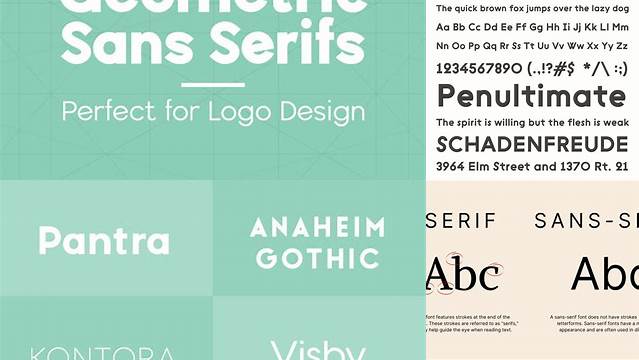
Free Geometric Sans Serif Fonts: Top Picks For Designers
Hey guys! Are you on the hunt for some killer fonts that are both modern and super readable? Look no further! We're diving deep into the world of free geometric sans serif fonts. These fonts are perfect for everything from website headers to branding projects. Let's explore some top picks and how to use them effectively.
1. Understanding Geometric Sans Serif Fonts
Geometric sans serif fonts, at their core, are typefaces that ditch the traditional serifs (those little feet at the end of strokes) in favor of clean, geometric shapes. Think circles, squares, and triangles forming the basis of each letter. This style gives them a modern, minimalist, and often very readable appearance. The beauty of geometric sans serif fonts lies in their simplicity. They're not fussy or overly decorative, making them incredibly versatile for a wide range of design applications. Whether you're designing a sleek logo, a user-friendly website, or a professional presentation, these fonts offer a clean and contemporary look. They also tend to work well in both large and small sizes, maintaining their legibility and impact. The precision of the geometric forms lends a sense of order and stability, which can be particularly effective for brands aiming to convey trustworthiness and competence. Plus, the lack of serifs makes them ideal for digital screens, where complex details can sometimes get lost. So, if you're after a font that's both stylish and functional, geometric sans serif is definitely the way to go!
2. Best Free Geometric Fonts for 2024
Finding the best free geometric fonts can sometimes feel like searching for a needle in a haystack, but fear not! We've curated a list of top contenders for 2024 that are sure to elevate your design game. One standout is Montserrat, a widely popular font known for its clean lines and versatile weights. It's incredibly readable and works beautifully in both headlines and body text. Another fantastic option is Raleway, which offers a slightly more elegant take on the geometric style with its distinctive 'W' and refined letterforms. For something a bit bolder, consider Bebas Neue, a tall and impactful font perfect for making a statement in headings and posters. Poppins is another excellent choice, praised for its rounded terminals and friendly appearance. It's highly legible and works well across various platforms. Last but not least, consider Lato, a semi-rounded sans serif that combines warmth and clarity. Each of these fonts brings something unique to the table, and they're all available for free, making them ideal for both personal and commercial projects. Experiment with different pairings and weights to find the perfect fit for your design needs!
3. Geometric Fonts for Logo Design
When it comes to logo design, geometric fonts can be a game-changer. The clean, structured lines of these fonts lend a sense of professionalism and modernity to your brand's visual identity. Choosing the right geometric font can communicate your brand's values and personality effectively. For instance, a font like Futura, with its perfectly circular forms, can convey a sense of innovation and precision. On the other hand, a slightly more rounded font like Poppins might suggest friendliness and approachability. The key is to select a font that aligns with your brand's message and target audience. When using geometric fonts in logos, consider the overall balance and visual impact. Pair the font with a complementary color palette and imagery to create a cohesive and memorable brand identity. Also, ensure the font remains legible and scalable across various platforms, from business cards to website headers. Don't be afraid to experiment with different weights and variations to find the perfect fit. Remember, your logo is the face of your brand, so choosing the right font is crucial for making a lasting impression.
4. Geometric Fonts for Web Design
In the realm of web design, readability and visual appeal are paramount. That's where geometric fonts shine. Their clean lines and clear letterforms make them highly legible on screens, ensuring a smooth and enjoyable user experience. Using geometric fonts for headings and body text can create a modern and professional look for your website. Consider fonts like Open Sans or Roboto, which are specifically designed for optimal screen readability. These fonts offer a variety of weights and styles, allowing you to create visual hierarchy and guide users through your content effectively. When implementing geometric fonts in your web design, pay attention to spacing and contrast. Ensure there's enough white space around your text to prevent it from feeling cramped and overwhelming. Also, choose contrasting colors that make the text stand out against the background. Remember, the goal is to create a website that's both visually appealing and easy to navigate. By using geometric fonts thoughtfully, you can achieve a balance of style and functionality that enhances the overall user experience.
5. Pairing Geometric Fonts Effectively
Pairing fonts can be tricky, but when done right, it can elevate your design from good to great. When working with geometric fonts, the key is to create contrast and visual interest while maintaining harmony. One approach is to pair a bold geometric font with a more subtle and classic serif font. For example, you could use Montserrat for your headings and pair it with a serif font like Merriweather for your body text. This creates a balanced contrast between the modern and the traditional, adding depth to your design. Another effective strategy is to pair two different geometric fonts with varying weights and styles. For instance, you could use a light and airy geometric font for your body text and a bold and condensed geometric font for your headings. This creates visual hierarchy and helps guide the reader's eye. When pairing fonts, always consider the overall tone and message of your design. Ensure the fonts complement each other and work together to create a cohesive and visually appealing aesthetic. Don't be afraid to experiment with different combinations until you find the perfect pairing for your project. Remember, the goal is to create a design that's both visually stunning and easy to read.
6. Geometric Fonts in Print Design
While geometric fonts are fantastic for digital designs, they also hold their own in the world of print. Their clean, modern aesthetic translates beautifully to printed materials, making them a versatile choice for a wide range of projects. Whether you're designing brochures, posters, or business cards, geometric fonts can add a touch of sophistication and professionalism. When using geometric fonts in print, consider the paper stock and printing method. Opt for a smooth, matte paper stock to showcase the clean lines of the font. Also, ensure the font is legible and scalable across different print sizes. A font that looks great on a large poster may not be as effective on a small business card. Pay attention to kerning and leading to ensure optimal readability. Proper spacing between letters and lines can make a significant difference in the overall appearance of your printed materials. Experiment with different weights and styles to create visual hierarchy and emphasize key information. Remember, print design is all about attention to detail, so take the time to refine your font choices and create a visually stunning final product. The right geometric font can really make your print designs pop!
7. The History of Geometric Sans Serif Fonts
The history of geometric sans serif fonts is a fascinating journey through the evolution of typography. These fonts emerged in the early 20th century, driven by the modernist movement's emphasis on simplicity, functionality, and geometric forms. One of the earliest and most influential geometric sans serifs was Futura, designed by Paul Renner in 1927. Futura was based on pure geometric shapes, such as the circle, square, and triangle, and it quickly became a symbol of modern design. Other notable geometric sans serifs from this era include Erbar and Kabel, which also embraced the principles of geometric construction. These fonts were widely used in advertising, signage, and corporate branding, helping to shape the visual landscape of the 20th century. Over time, geometric sans serifs have evolved and diversified, with new interpretations and variations emerging to meet the changing needs of designers. Today, they remain a popular and versatile choice for a wide range of applications, from web design to print advertising. Their enduring appeal lies in their clean lines, legibility, and timeless aesthetic. Understanding the history of geometric sans serif fonts can provide valuable insights into their design principles and help you use them effectively in your own projects. So, next time you're choosing a font, remember the rich history behind these iconic typefaces!
8. Geometric Fonts for Headlines
Headlines are the first thing people see, so choosing the right font is crucial. Geometric fonts are excellent for headlines because they're modern, clean, and attention-grabbing. A bold geometric font can make a strong statement and draw readers in. Consider fonts like Bebas Neue or Montserrat Extra Bold for impactful headlines. These fonts have a strong presence and are highly legible, even at large sizes. When using geometric fonts for headlines, think about the overall tone of your message. A more rounded geometric font like Poppins might be suitable for a friendly and approachable headline, while a sharper font like Futura might be better for a serious and professional headline. Experiment with different font weights and sizes to create visual hierarchy and emphasize key words. Also, pay attention to spacing and kerning to ensure the headline is easy to read. A well-chosen geometric font can make your headlines stand out and capture the reader's attention. Remember, the goal is to create a headline that's both visually appealing and informative. So, choose wisely and make a statement!
9. Geometric Fonts for Body Text
While geometric fonts are great for headlines, they can also work well for body text, provided you choose the right font and use it carefully. Readability is key when selecting a font for body text, so opt for geometric fonts with clear letterforms and generous spacing. Fonts like Open Sans and Lato are excellent choices for body text because they're designed for optimal screen readability. These fonts have a neutral and unobtrusive design that won't distract from the content. When using geometric fonts for body text, pay attention to font size and line height. Ensure the text is large enough to read comfortably and that there's enough space between lines to prevent it from feeling cramped. Also, consider the overall length of your paragraphs. Shorter paragraphs are easier to read and digest, especially on digital screens. Experiment with different font weights and styles to create visual hierarchy and emphasize key information. However, avoid using too many different fonts in your body text, as this can be distracting and overwhelming. A well-chosen geometric font can make your body text more readable and engaging. Remember, the goal is to create a comfortable reading experience for your audience. So, choose wisely and prioritize readability!
10. Combining Geometric and Serif Fonts
Combining geometric and serif fonts can create a visually appealing and balanced design. The contrast between the clean, modern lines of geometric fonts and the traditional, elegant curves of serif fonts can add depth and interest to your project. One popular approach is to use a geometric font for headings and a serif font for body text. This creates a clear visual hierarchy and makes the content more readable. For example, you could use Montserrat for your headings and pair it with a serif font like Times New Roman or Georgia for your body text. Another option is to use a serif font for headings and a geometric font for body text. This can create a more subtle and understated look. When combining geometric and serif fonts, pay attention to the overall tone and message of your design. Ensure the fonts complement each other and work together to create a cohesive aesthetic. Also, consider the font weights and styles. Choose fonts that have similar x-heights and stroke thicknesses to create a harmonious balance. Experiment with different combinations until you find the perfect pairing for your project. Remember, the goal is to create a design that's both visually stunning and easy to read. So, don't be afraid to mix and match!
11. Geometric Fonts and Branding
Your brand's font choices are a critical part of its identity. Geometric fonts can convey a sense of modernity, clarity, and precision, making them a popular choice for branding across various industries. When choosing a geometric font for your brand, consider your target audience and the message you want to communicate. A clean and simple geometric font can convey trustworthiness and professionalism, while a bolder font might suggest innovation and dynamism. Think about how the font will be used across different platforms, from your website and social media to your business cards and marketing materials. Scalability and legibility are key factors to consider. It's also important to choose a font that's unique and memorable, helping your brand stand out from the competition. Consistency is crucial when it comes to branding, so stick with your chosen font across all your brand communications. Whether you're a tech startup, a creative agency, or a corporate enterprise, a well-chosen geometric font can help you establish a strong and recognizable brand identity. Remember, your font is a visual representation of your brand's personality, so choose wisely!
12. Using Geometric Fonts in Presentations
Presentations need to be clear and engaging, and your font choices play a big role. Geometric fonts are a great option for presentations because they're easy to read and visually appealing. A clean, sans-serif font like Montserrat or Lato can help your slides look professional and modern. When choosing a geometric font for your presentation, consider the size of the room and the type of screen you'll be using. Ensure the font is large enough to be easily read from the back of the room, and that the text stands out clearly against the background. Use different font weights and sizes to create visual hierarchy and emphasize key points. Bullet points and short paragraphs can also make your slides more digestible. Avoid using too many different fonts, as this can be distracting and overwhelming. Stick with a consistent font throughout your presentation to maintain a professional and cohesive look. Remember, your goal is to communicate your message effectively, so choose fonts that support your content and enhance the overall presentation experience. A well-chosen geometric font can help you deliver a clear, concise, and visually appealing presentation!
13. Geometric Fonts for Mobile Apps
In the world of mobile apps, readability is paramount. Geometric fonts shine here because they're designed for optimal screen clarity. Their clean lines and simple shapes make them easy to read on small screens, ensuring a smooth user experience. When selecting a geometric font for your mobile app, prioritize legibility and scalability. Fonts like Roboto and Open Sans are excellent choices because they're specifically designed for mobile devices. Pay attention to font size and line height to ensure the text is comfortable to read. Use contrasting colors to make the text stand out against the background. Also, consider the overall design of your app and choose a font that complements the user interface. A well-chosen geometric font can enhance the usability and visual appeal of your mobile app. Remember, the goal is to create an app that's both functional and aesthetically pleasing. So, choose wisely and prioritize readability!
14. Geometric Fonts and Data Visualization
When visualizing data, clarity is key. Geometric fonts are an excellent choice for data visualizations because they're clean, neutral, and easy to read. Whether you're creating charts, graphs, or infographics, a well-chosen geometric font can help you communicate your data effectively. Fonts like Arial and Helvetica are commonly used in data visualization because they're highly legible and don't distract from the data itself. When using geometric fonts in data visualizations, pay attention to font size and color. Ensure the text is large enough to be easily read and that the colors contrast well with the background. Use different font weights and styles to create visual hierarchy and emphasize key data points. Also, consider the overall design of your visualization and choose a font that complements the visual elements. Remember, the goal is to present your data in a clear, concise, and visually appealing way. A well-chosen geometric font can help you achieve this goal and make your data more accessible to your audience!
15. Geometric Fonts for E-commerce
In the competitive world of e-commerce, your font choices can significantly impact your brand's visual identity and user experience. Geometric fonts are a popular choice for e-commerce websites because they convey a sense of modernity, trustworthiness, and clarity. A clean and simple geometric font can help build trust with your customers and create a professional online presence. When choosing a geometric font for your e-commerce site, consider the overall design and user experience. Ensure the font is legible and scalable across different devices, from desktop computers to mobile phones. Use different font weights and sizes to create visual hierarchy and highlight important information, such as product names and prices. Pay attention to spacing and kerning to ensure optimal readability. Also, consider the overall tone and message of your brand and choose a font that reflects your brand's personality. Remember, your font is a visual representation of your brand, so choose wisely and create a consistent and engaging online shopping experience!
16. Geometric Fonts in Social Media Graphics
Social media graphics need to grab attention quickly. Geometric fonts are perfect for this because they're modern, clean, and visually appealing. A bold geometric font can make your graphics stand out in a crowded feed. Consider fonts like Montserrat or Bebas Neue for impactful social media graphics. When using geometric fonts in social media, think about the platform you're using and the target audience you're trying to reach. Use different font weights and sizes to create visual hierarchy and emphasize key messages. Also, pay attention to color and contrast to ensure your text is easily readable. Remember, social media is a visual medium, so your graphics need to be eye-catching and engaging. A well-chosen geometric font can help you create social media graphics that capture attention and communicate your message effectively. Get those likes and shares!
17. Geometric Fonts and Accessibility
Accessibility is a crucial consideration in design. Geometric fonts can be a good choice for accessibility because they're typically clean and easy to read. However, it's important to choose the right geometric font and use it correctly to ensure your designs are accessible to everyone. When selecting a geometric font for accessibility, prioritize legibility and readability. Fonts like Open Sans and Arial are known for their clear letterforms and wide character spacing, making them easier to read for people with visual impairments. Pay attention to font size and contrast to ensure the text is visible and readable. Use sufficient white space around the text to prevent it from feeling cramped. Also, consider the needs of people with dyslexia. Some fonts are specifically designed to be more readable for people with dyslexia, such as Open Dyslexic. By choosing the right geometric font and following accessibility guidelines, you can create designs that are inclusive and accessible to everyone!
18. The Psychology of Geometric Fonts
Fonts aren't just about how they look; they also evoke certain feelings and associations. Geometric fonts often convey a sense of modernity, efficiency, and precision. Their clean lines and simple shapes can create a feeling of order and clarity. When choosing a geometric font, consider the psychological impact you want to create. A font like Futura might evoke a sense of innovation and technological advancement, while a font like Poppins might suggest friendliness and approachability. Think about how the font aligns with your brand's personality and values. Also, consider the context in which the font will be used. A geometric font that works well for a tech company might not be appropriate for a more traditional or artistic brand. Understanding the psychology of geometric fonts can help you make informed decisions about your font choices and create designs that resonate with your target audience!
19. Geometric Fonts for Infographics
Infographics are all about presenting information in a visually engaging way. Geometric fonts are an excellent choice for infographics because they're clean, modern, and easy to read. A well-chosen geometric font can help you communicate your data and insights effectively. When using geometric fonts in infographics, prioritize clarity and readability. Choose fonts that are easy to read at different sizes and weights. Use different font styles to create visual hierarchy and emphasize key data points. Also, pay attention to color and contrast to ensure your text stands out against the background. Consider the overall design of your infographic and choose a font that complements the visual elements. Remember, the goal is to present your information in a clear, concise, and visually appealing way. A well-chosen geometric font can help you achieve this goal and make your infographics more engaging and informative!
20. Geometric Fonts in App Design
In app design, fonts play a crucial role in user experience. Geometric fonts are often favored for their clean lines and legibility, making them ideal for mobile interfaces. When selecting a geometric font for your app, consider factors like screen size, resolution, and the overall aesthetic you want to achieve. Fonts like Roboto and Open Sans are popular choices due to their versatility and readability on various devices. Ensure your chosen font scales well and remains legible at different sizes. Also, pay attention to the spacing and kerning to optimize readability. Use different font weights and styles to create visual hierarchy and guide the user's eye. A well-chosen geometric font can enhance the usability and visual appeal of your app, providing a seamless and enjoyable user experience!
21. Geometric Fonts for Packaging Design
First impressions matter, and your packaging design is often the first point of contact with your customers. Geometric fonts can convey a sense of modernity, cleanliness, and sophistication, making them a great choice for packaging design. When selecting a geometric font for your packaging, consider your target audience, product, and brand identity. A sleek and minimalist geometric font can convey a sense of luxury and exclusivity, while a bolder font might suggest energy and excitement. Ensure your chosen font is legible and scales well, whether it's printed on a large box or a small label. Also, pay attention to the color and contrast to ensure your text stands out on the packaging. A well-chosen geometric font can elevate your packaging design and help your product stand out on the shelves!
22. Geometric Fonts for Legal Documents
While creativity is key in design, there are certain situations where clarity and professionalism take precedence. Legal documents require fonts that are easy to read and avoid any ambiguity. Geometric fonts, with their clean lines and simple shapes, can be a suitable choice for legal documents if chosen carefully. Select geometric fonts like Arial or Calibri that are widely recognized and have clear letterforms. Ensure the font size is large enough for comfortable reading and that the line spacing is adequate. Avoid using decorative fonts or excessive styling that could detract from the document's clarity. Remember, the primary goal is to ensure the legal document is easily understood and leaves no room for misinterpretation. Stick to simplicity and prioritize readability!
23. Geometric Fonts for Resumes
Your resume is your first impression on potential employers, so choose your fonts wisely. Geometric fonts can convey professionalism and modernity, making them a great choice for resumes. However, it's essential to select a geometric font that's easy to read and doesn't distract from your qualifications. Fonts like Lato and Open Sans are excellent choices for resumes because they're clean, legible, and widely accepted. Avoid using overly decorative or unconventional fonts that might be difficult to read or come across as unprofessional. Ensure your font size is appropriate for readability and that your spacing is consistent throughout the document. Remember, the goal is to present your skills and experience in a clear and concise manner. A well-chosen geometric font can enhance the readability and visual appeal of your resume, helping you make a positive first impression!
24. Geometric Fonts in Editorial Design
Editorial design encompasses a wide range of print and digital publications, from magazines and newspapers to books and journals. Geometric fonts can be a versatile choice for editorial design, offering a blend of modernity and readability. When selecting a geometric font for your editorial design, consider the overall tone and style of the publication. A clean and minimalist geometric font can convey a sense of sophistication and clarity, while a bolder font might suggest energy and excitement. Pay attention to the hierarchy of information and use different font weights and sizes to guide the reader's eye. Ensure your chosen font is legible and scales well across different layouts and sizes. Remember, the goal is to create a visually engaging and informative reading experience. A well-chosen geometric font can enhance the readability and visual appeal of your editorial design!
25. Geometric Fonts and User Interface (UI) Design
User interface (UI) design focuses on creating intuitive and visually appealing interfaces for digital products. Geometric fonts are a popular choice for UI design due to their clean lines, legibility, and modern aesthetic. When selecting a geometric font for your UI, consider factors like screen size, resolution, and the overall user experience. Fonts like Roboto and Open Sans are widely used in UI design due to their versatility and readability on various devices. Ensure your chosen font scales well and remains legible at different sizes and resolutions. Also, pay attention to the spacing and kerning to optimize readability. Use different font weights and styles to create visual hierarchy and guide the user's eye. A well-chosen geometric font can enhance the usability and visual appeal of your UI, providing a seamless and enjoyable user experience!
26. Geometric Fonts for Signs and Wayfinding
Signs and wayfinding systems play a crucial role in guiding people through physical spaces. Geometric fonts, with their clear letterforms and legibility, are well-suited for signs and wayfinding. When selecting a geometric font for your signage, prioritize readability and visibility. Choose fonts that are easy to read from a distance and in various lighting conditions. Ensure the font size is large enough for clear visibility, and consider using contrasting colors to enhance readability. Pay attention to the spacing and kerning to optimize legibility. Also, consider the overall design of the signage and choose a font that complements the surrounding environment. A well-chosen geometric font can enhance the effectiveness of your signs and wayfinding systems, ensuring people can easily navigate their surroundings!
27. Geometric Fonts and Email Marketing
In email marketing, fonts play a vital role in conveying your message and creating a visually appealing experience for your subscribers. Geometric fonts can be an excellent choice for email marketing due to their clean, modern aesthetic and readability on various devices. When selecting a geometric font for your email campaigns, prioritize readability and ensure your font scales well across different email clients and devices. Use different font weights and sizes to create visual hierarchy and emphasize key messages. Pay attention to the spacing and kerning to optimize readability. Also, consider your brand's overall style and choose a font that aligns with your brand identity. A well-chosen geometric font can enhance the effectiveness of your email marketing campaigns and help you create engaging and visually appealing emails!
28. Geometric Fonts for Children's Books
Choosing the right font for children's books is essential to ensure readability and engagement for young readers. While playful and whimsical fonts are often used, geometric fonts can also be a great option, offering a blend of clarity and visual appeal. Select geometric fonts that have simple and well-defined letterforms, making them easy for children to recognize. Ensure the font size is large enough for comfortable reading and that the line spacing is generous. Avoid using overly complex or decorative fonts that might confuse young readers. Consider the overall tone and style of the book and choose a font that complements the illustrations and narrative. A well-chosen geometric font can enhance the readability and visual appeal of children's books, making them a delightful reading experience for young minds!
29. Geometric Fonts for Architectural Drawings
Architectural drawings require precision and clarity, and your font choices play a crucial role in ensuring readability and accuracy. Geometric fonts, with their clean lines and simple shapes, are a suitable choice for architectural drawings. Select geometric fonts that have consistent stroke weights and well-defined letterforms. Ensure the font size is appropriate for the scale of the drawing and that the spacing is uniform. Avoid using decorative fonts or excessive styling that could detract from the document's clarity. Remember, the primary goal is to ensure the architectural drawings are easily understood and leave no room for misinterpretation. Stick to simplicity and prioritize readability!
30. Geometric Fonts and Minimalist Design
Minimalist design emphasizes simplicity and functionality, and your font choices play a vital role in achieving this aesthetic. Geometric fonts are a natural fit for minimalist design due to their clean lines, simple shapes, and lack of ornamentation. When selecting a geometric font for your minimalist designs, prioritize clarity and readability. Choose fonts that have well-defined letterforms and consistent stroke weights. Avoid using overly decorative or complex fonts that might detract from the minimalist aesthetic. Use ample white space to create a sense of openness and simplicity. Also, consider the overall tone and message of your design and choose a font that aligns with the minimalist principles. A well-chosen geometric font can enhance the impact of your minimalist designs, conveying a sense of elegance, clarity, and sophistication!